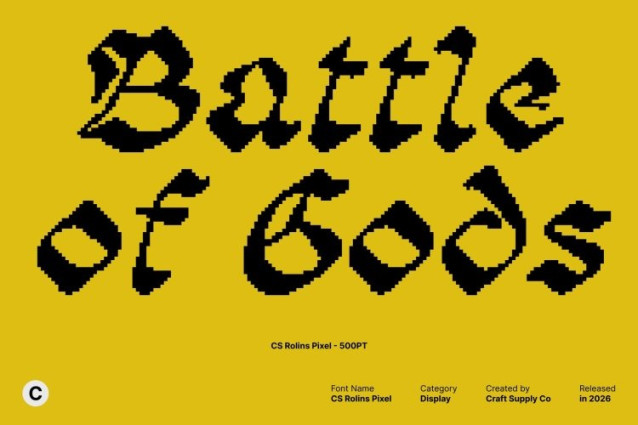
CS Rolins Pixel Font
CS Rolins Pixel Font This transforms the traditional Blackletter style into a pixel-perfect display font. The rounded elegance of the original is preserved, but each stroke is reinterpreted with crisp, geometric pixel blocks, giving it a retro-digital charm that works beautifully on screens, posters, and signage. This creates a bold, modern homage to classical Gothic letterforms.
Ornate Detailing in Digital Form
The decorative flourishes and dramatic Blackletter strokes are maintained in a simplified, pixel-based style. Each letter retains its historic sophistication while gaining a structured, modular geometry that ensures clarity and readability in digital contexts. The result is a harmonious blend of old-world craftsmanship and contemporary pixel artistry.
Versatile for Modern and Retro Projects
This font excels in designs that need authority, drama, and character. Perfect for retro video games, digital posters, music artwork, or branding with a classic-meets-modern edge, this font delivers a visually striking presence that grabs attention while maintaining historic nuance.
A Typeface with Strength and Style
With its bold, pixelized forms and rounded flourishes, communicates both strength and personality. Ideal for logos, display headlines, or creative projects that fuse tradition with digital innovation, it ensures your text is memorable, expressive, and visually captivating.